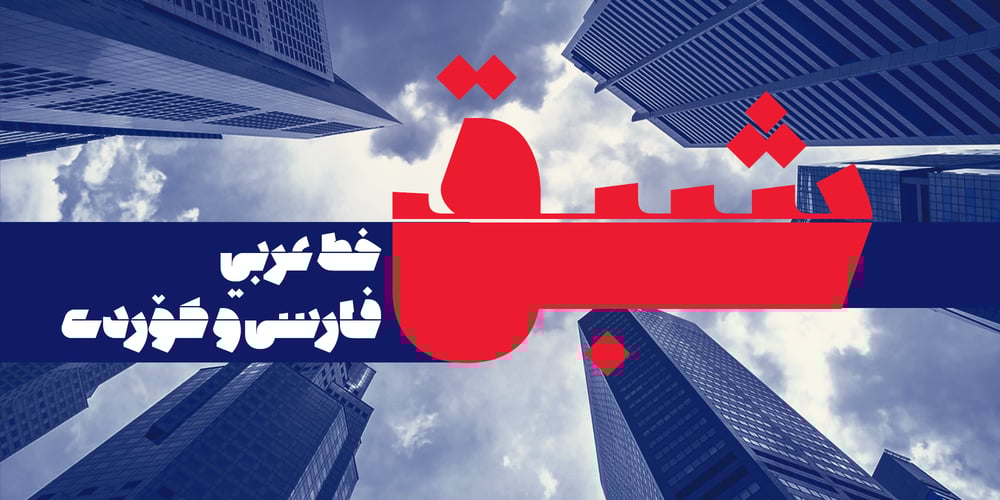
Shabaq Font Family was designed by Reza Bohloul and published by Bohloul Arabic Type Design. Shabaq contains 3 styles and family package options. Shabaq is a heavy, ultra black Arabic font. It is suitable for ‘Display’ and large print use cases, especially billboards and advertisement. It also performs well as a title and header font. Shabaq is a geometrical font based on the charactristics of the traditional Naskh typeface with a perfectly fresh and modern appearance. Shabaq is super-black, dazzles the eyes of the beholder and leaves them deeply influenced. Shabaq supports Arabic, Persian and Kurdish languages.